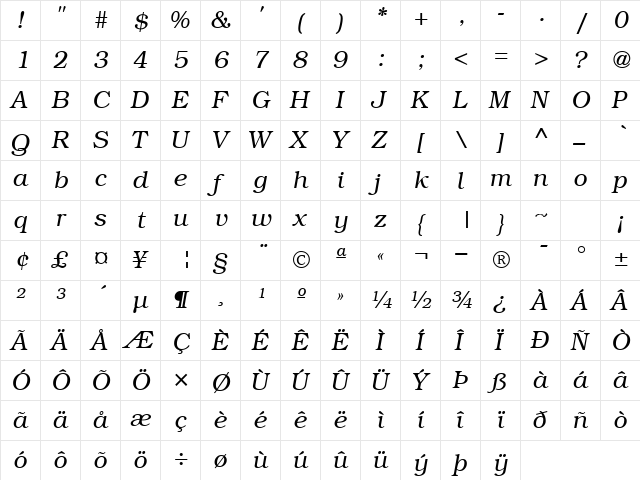
Bookwoman LightItalicSH
Design Context for Bookwoman Typeface
Bookwoman offers clean, dependable letterforms without strong stylistic allegiance, making it a practical choice for designers who need flexibility. The slanted form adds forward momentum and visual energy. The delicate stroke weight brings airiness and refinement to layouts.
Pro Tip: Try Bookwoman for annotation and caption copy alongside an upright companion — the contrast in angle creates a dynamic but ordered typographic system.